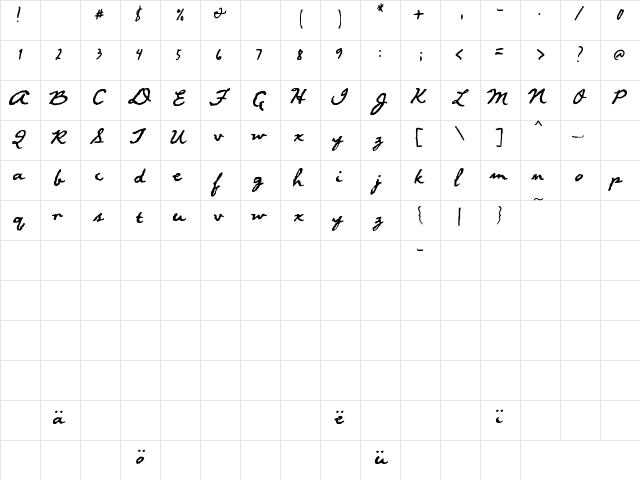
Suwa Regular
Regular · High-Logic High-Logic - Erwin Denissen ·
DesignerHigh-Logic - Erwin Denissen
Design Context for Suwa Typeface
Suwa takes a measured approach to typography — its balanced proportions and neutral character make it a reliable workhorse for both digital and print work.